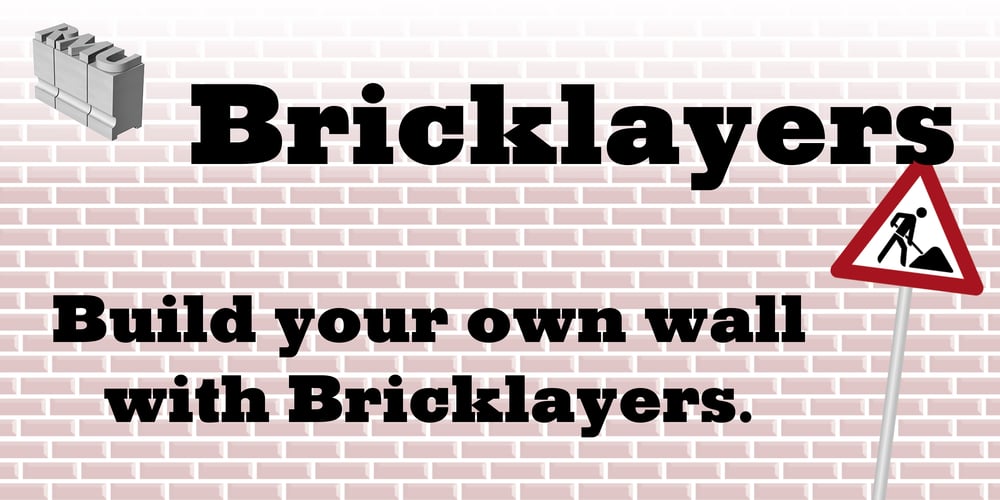
Bricklayers Font Family was designed by Ralph M. Unger and published by RMU. Bricklayers contains 1 styles and family package options. Bricklayers is a gorgeous poster and headline font which allows its users to build their individual brick walls for print and web design. Heed the instruction how to build your own wall.